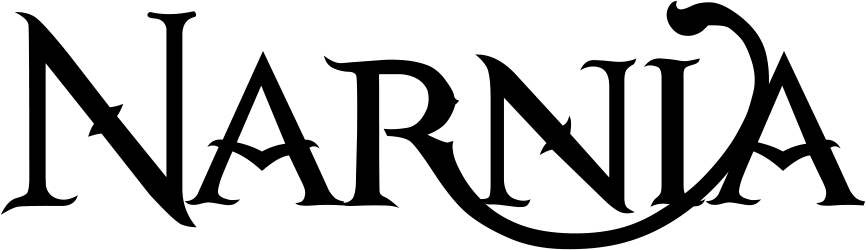
Narnia BLL Font
Looking for something suitable, that will add a scary, retro, and intimidating feel to your typography? Then you are at the exact right place, as Narnia BLL is what will help you to achieve the design you wish for. This ligature serif font has thin, bold characters that have serif edges, some have swash tails.
Narnia BLL is a sharp fairytale font that offers capital alphabet letters, numbers plus punctuation. Popular places for the font are books, movies, websites, games, and flyers.